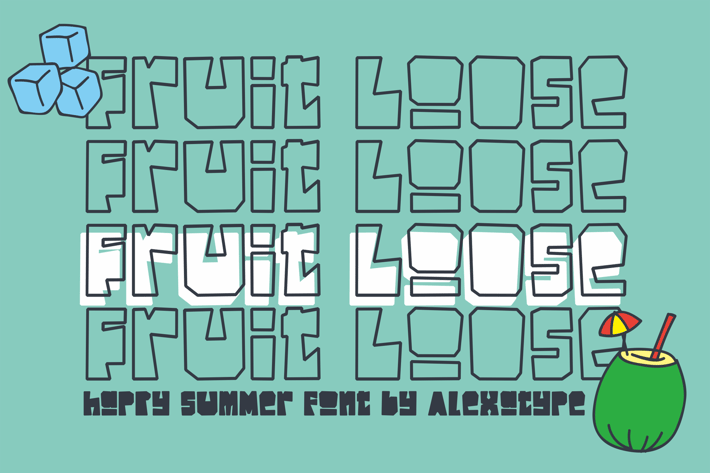
Fruitloose - Happy Summer Font
Fruitloose - Happy summer font
The jagged line form an irregular and dynamic vibes.
just like Summer did to all of us, producing tan line that we all proudly wear it as a badge of honour.
let loose.